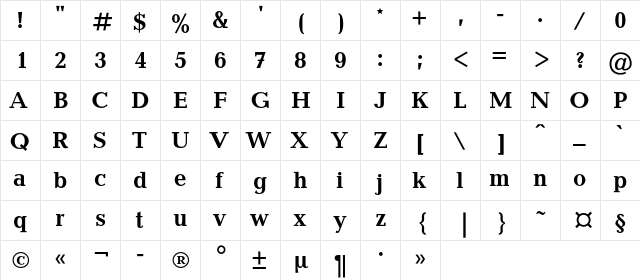
BalticaC Bold
Design Context for BalticaC Typeface
BalticaC is a composed and adaptable typeface that performs quietly and consistently across a wide range of design contexts. Its bold stroke weight gives it real presence on the page.
Pro Tip: Pair BalticaC with a font of contrasting weight or personality to build a more expressive typographic hierarchy.